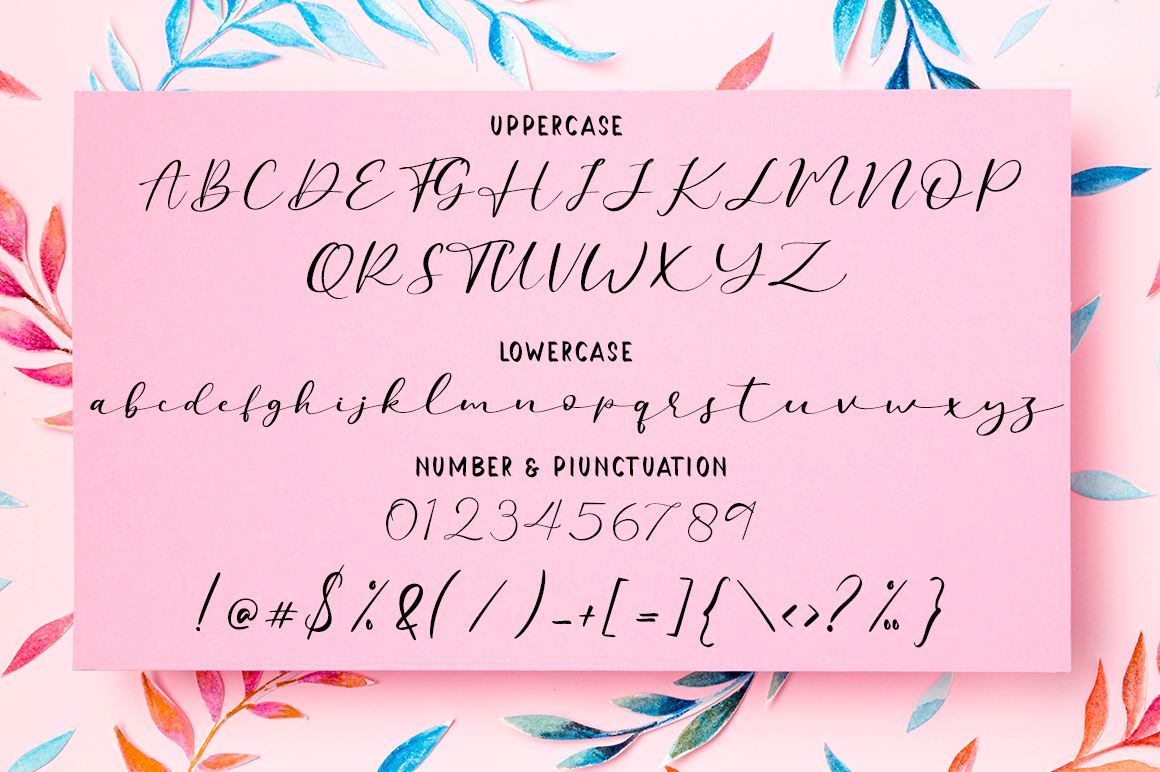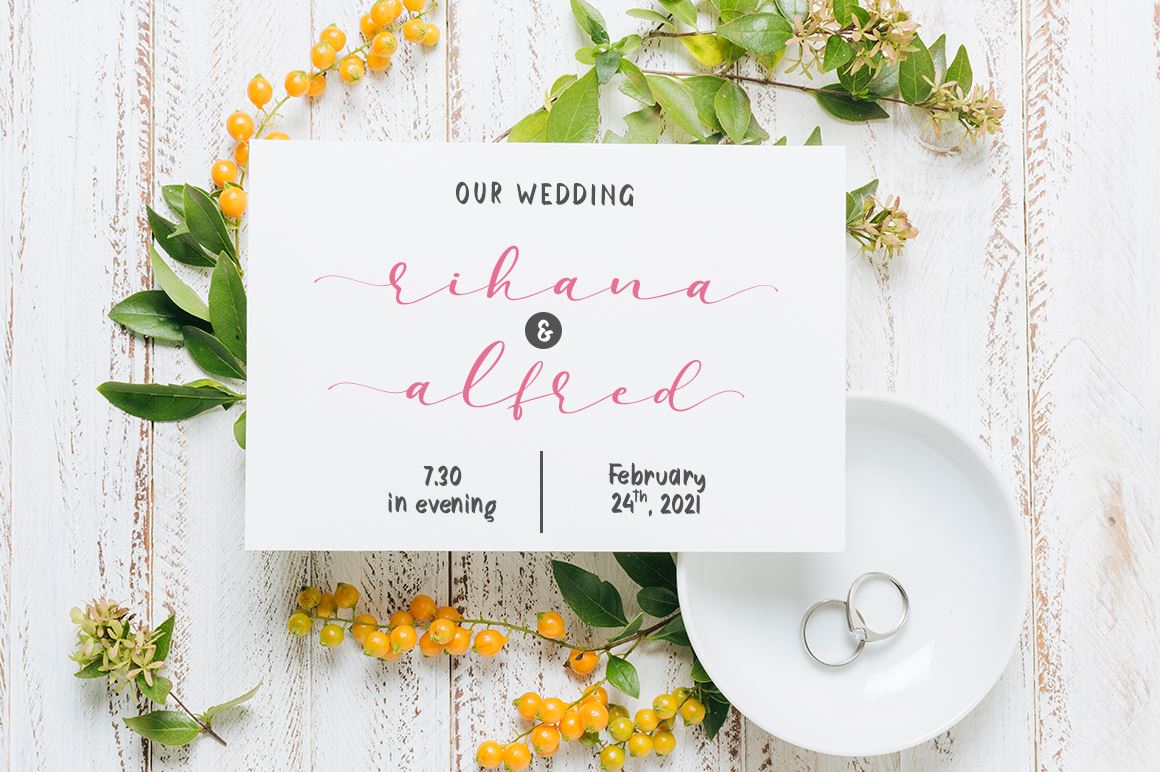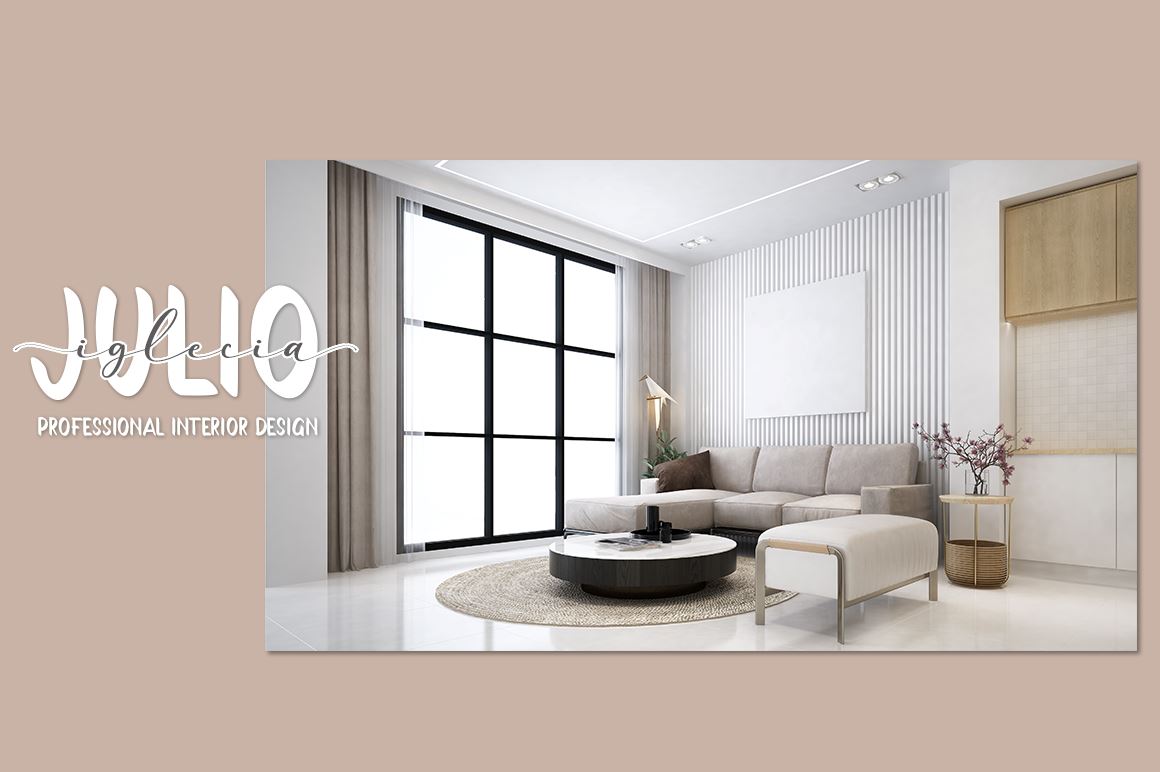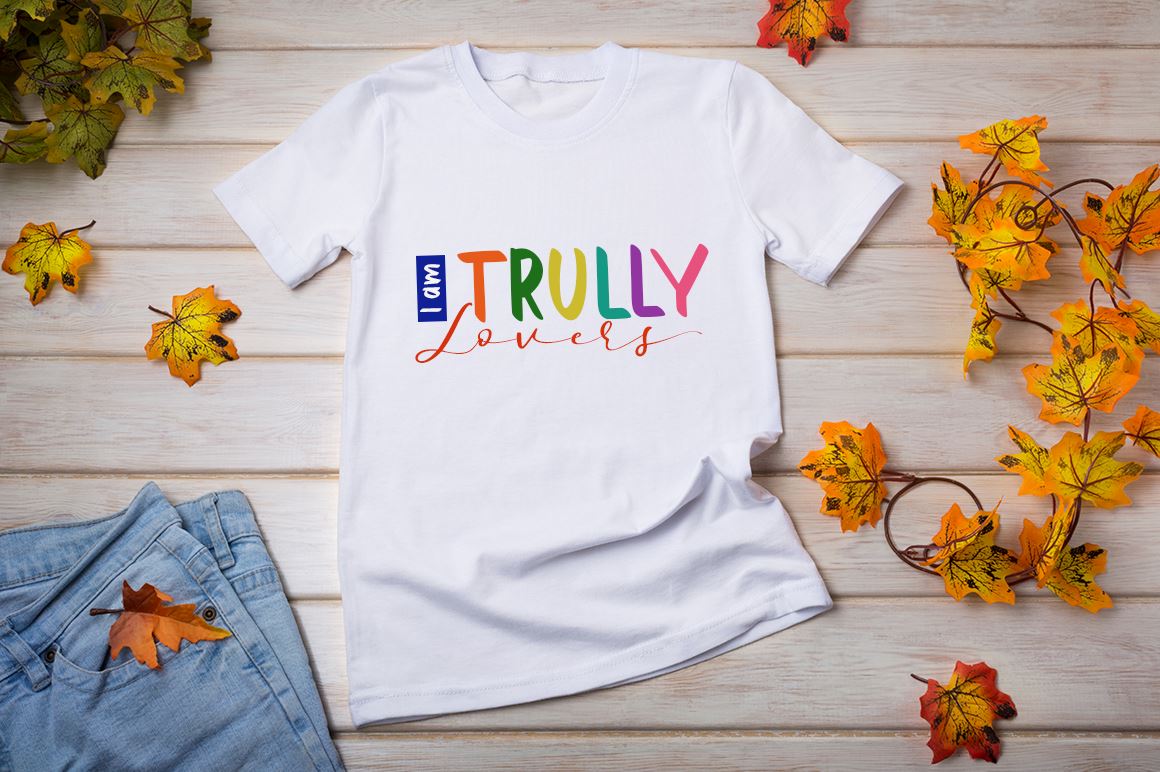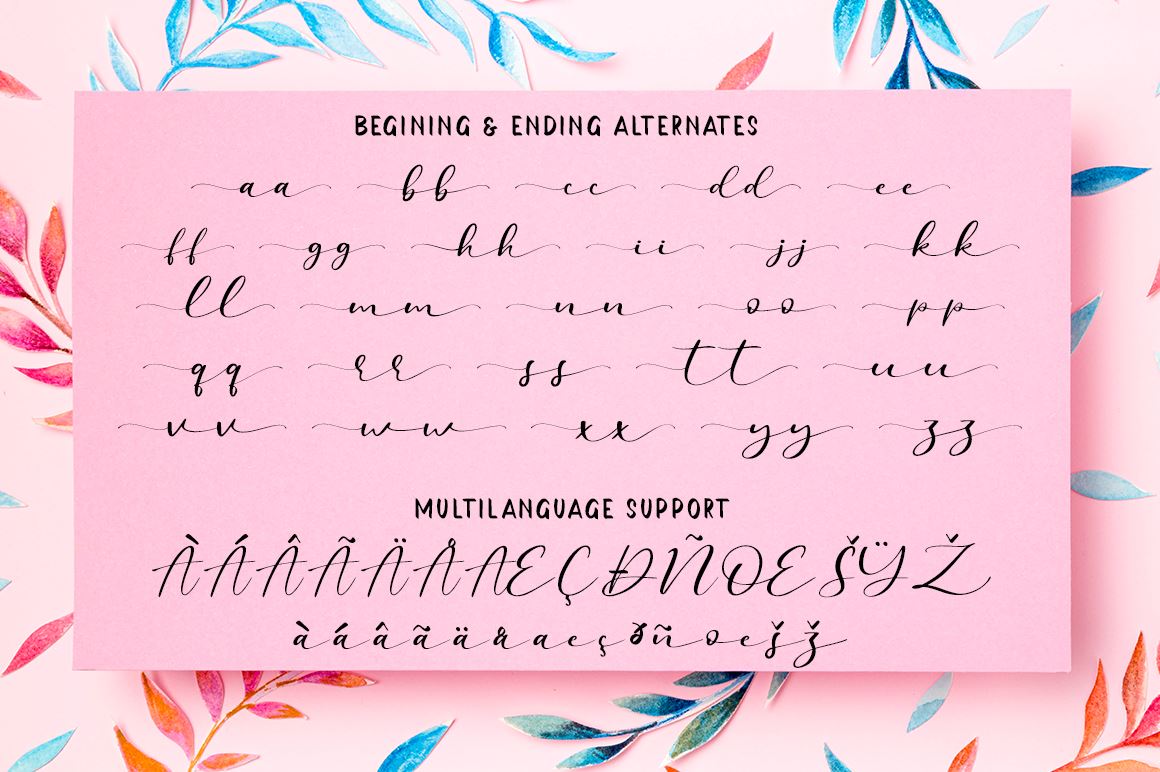
Introduce cute font duo collaboration in Darling Font Duo the cute stylish modern and natural handwritten fonts combination with casual alternates in script and cute in Sans. These are perfect for branding, wedding invites and cards, and more option for your requirement. Darling Font Duo include two font styles with full set of handwritten style draw for script and cute style letters for sans. Numerals, a large range of punctuation and ligatures giving realistic hand-lettered style. What you get Darling? 🙂 You will get : Darling Script TTF, OTF Darling Sans TTF, OTF In order to use the beautiful ligatures for script also all uppercase for sans serif, you need a program that supports OpenType features such as Adobe Illustrator CS, Adobe Photoshop CC, Adobe Indesign and Corel Draw. Thanks and have a great day 🙂 Haksen Studio